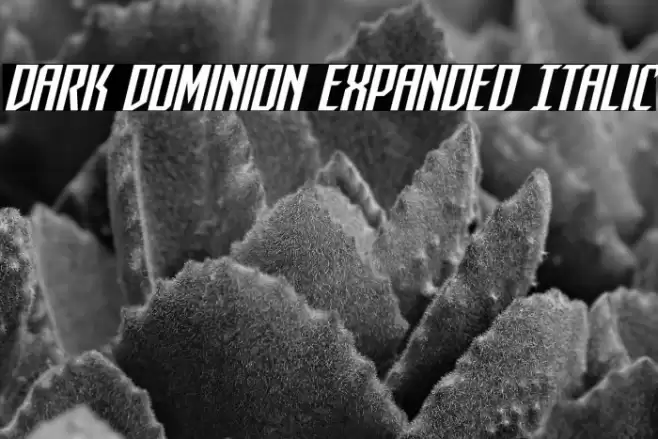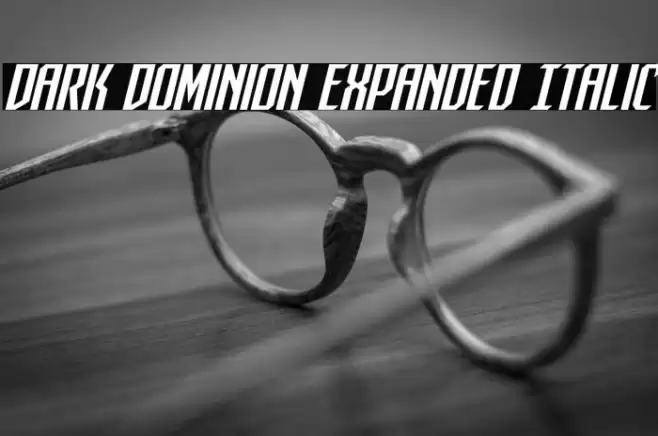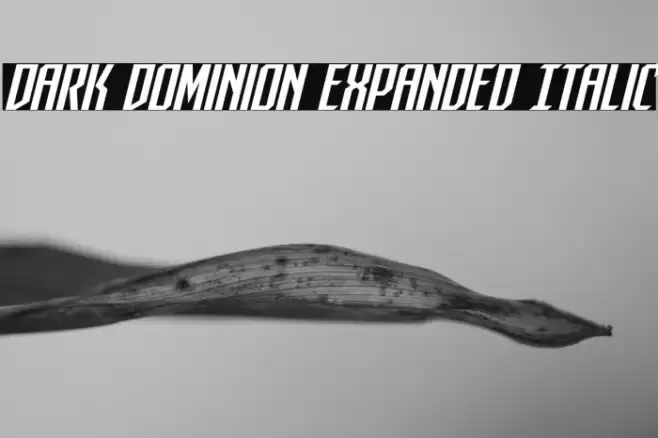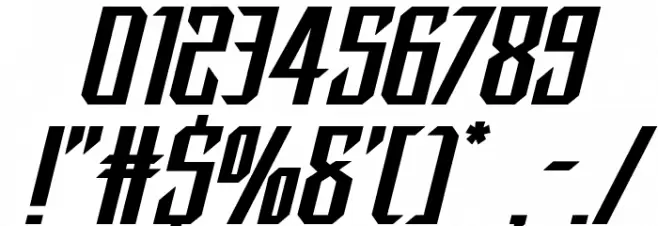
Dark Dominion Expanded Italic Font
Dark Dominion Expanded Italic Description
This font features a bold and dynamic design with a distinctly modern and futuristic flair. The characters are sharply angled, giving them a sense of motion and energy. The expanded width and italic slant enhance its aggressive and impactful appearance, making it ideal for attention-grabbing headlines or branding. The high contrast between thick and thin strokes adds to its striking visual appeal, while the tight character spacing ensures a cohesive and compact look. This font is perfect for projects that require a bold statement and a contemporary edge.
A bold, expanded, and italic font with a modern, dynamic style from Uncategorized fonts.
- Proposed Projects: Ideal for sports branding, video game titles, movie posters, and dynamic advertising campaigns.
- Width: Expanded
- Character Spacing: Tight